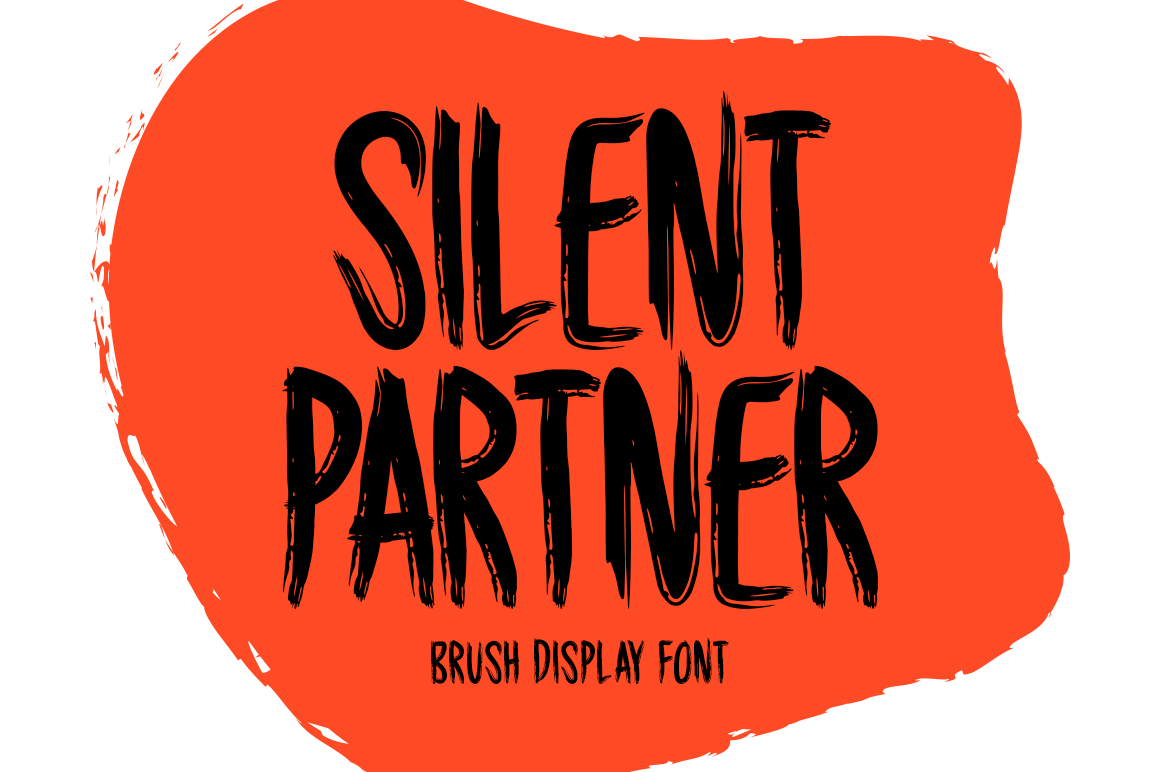
Silent Partner Typeface
Silent Partner features a vibrant brush-style display that infuses your designs with creativity. This versatile font is perfect for stationery, logos, t-shirts, paper products, print media, website headers, photo frames, flyers, music covers, posters, image sliders, and much more.